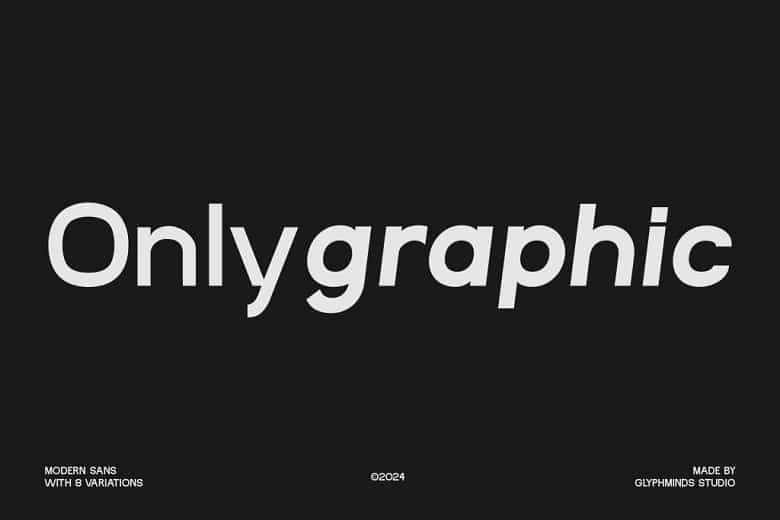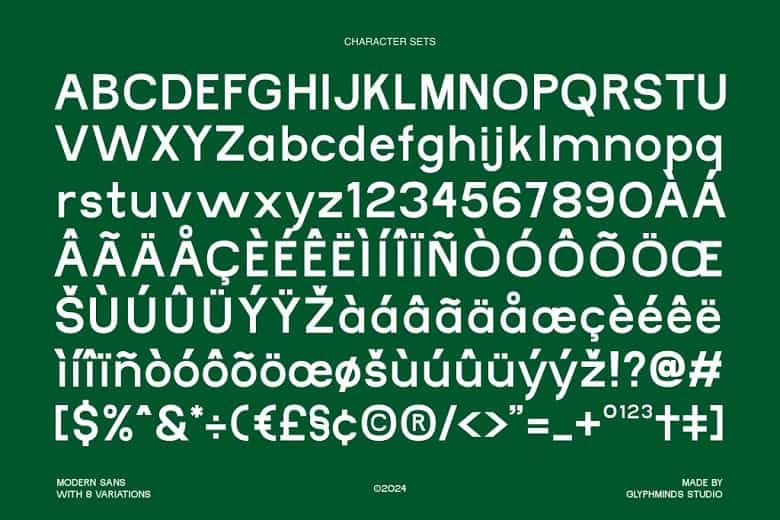
Discover Onlygraphic Font Family, part of the Sans Serif collection—a versatile and unique font perfect for adding a personal touch to your projects. Download it for free and enjoy crafting designs with style, from invitations to social media posts. This font is available exclusively for personal use, giving you the freedom to create without limits. Unlock your creativity with Onlygraphic Font Family today!
Onlygraphic is an elegant typeface which belongs to the sans-serif font family and will add value to your creative works. These 8 variations make this font ideal for use in branding, marketing, websites and apps among other uses. This simplicity of design and the general lack of clutter make “Onlygraphic” a perfect solution for business people who want a professional looking and clean aesthetic.